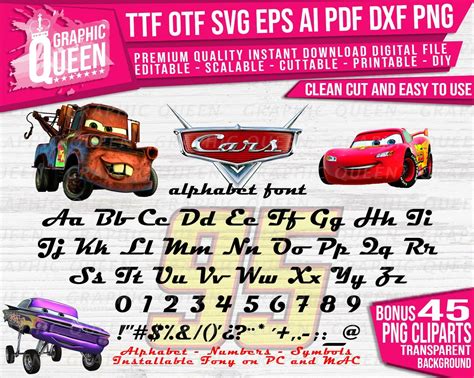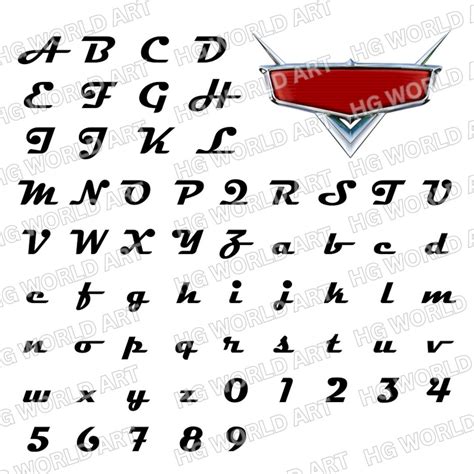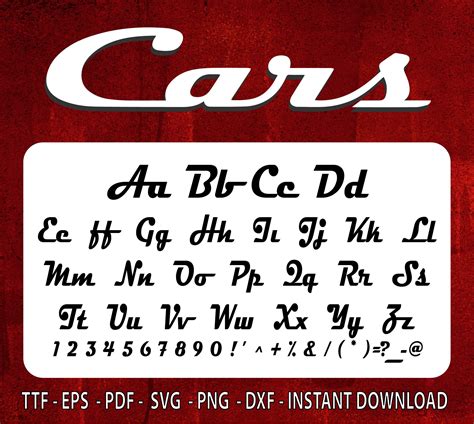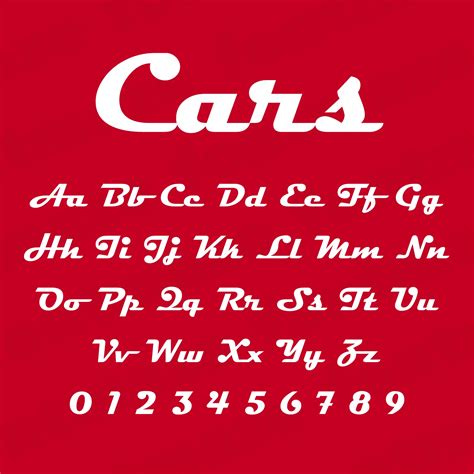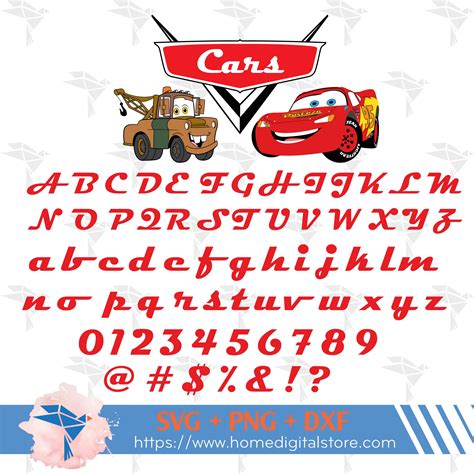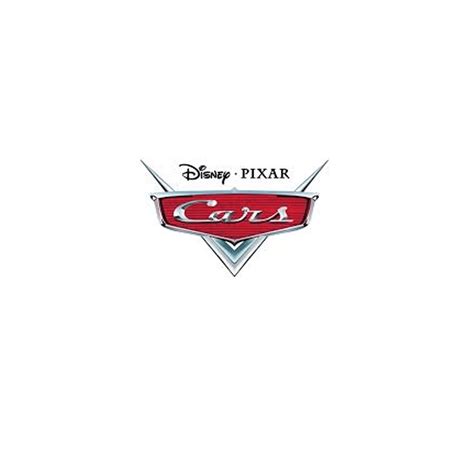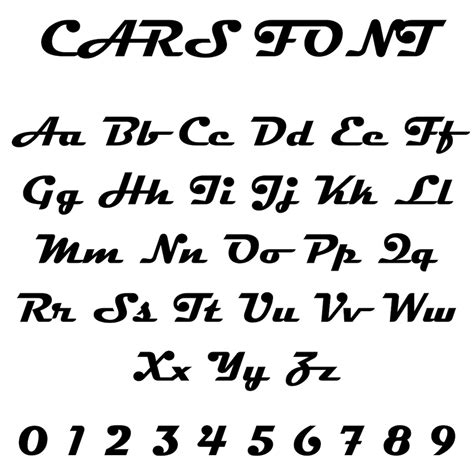
When it comes to graphic design, movie-inspired typography often carries a nostalgic weight that few other aesthetics can match. Perhaps no other film franchise has captured the hearts of families and racing enthusiasts quite like Disney-Pixar’s Cars. The iconic logo, with its tilted, high-octane lettering, has become synonymous with speed, adventure, and the golden age of automotive travel. Whether you are creating a themed birthday party invitation, a fan-made poster, or custom merchandise, finding the perfect Cars font is essential to replicating that high-energy, cinematic feel that fans instantly recognize.
Understanding the Aesthetic of the Cars Font
The original logo for the film is a custom-designed piece of lettering, meaning there isn't one single "official" file that the studio released for public use. However, the design community has spent years crafting near-perfect replicas that capture the spirit of the original. The Cars font style is defined by several distinct characteristics:
- Bold, Italicized Sans-Serif: The letters are thick and slanted forward, creating an immediate sense of forward motion.
- Distressed or Grunge Texture: Many variations include a weathered look, reminiscent of old Route 66 signage.
- Horizontal Bar Highlights: The design often incorporates thin horizontal lines through the center of the letters, mimicking the aesthetic of vintage chrome badges on classic automobiles.
- High Legibility: Despite the stylized approach, the letters remain clear and impactful, perfect for headings and branding.
By mimicking these features, designers can create a cohesive look that aligns perfectly with the visual language established by the film franchise. If you are aiming for a professional look, focus on using fonts that prioritize that "racing" vibe, even if they aren't exact clones of the movie logo.
Popular Alternatives for a Racing Vibe
Since the original logo is a trademarked design, creators often turn to licensed alternatives that capture the same energy. Several typefaces on the market today offer that aggressive, automotive-inspired personality. When selecting a font, consider the specific mood you are trying to evoke—is it a sleek, modern sports car or a dusty, vintage hot rod?
| Font Category | Best Used For | Visual Style |
|---|---|---|
| Action/Racing Fonts | Logos and Banners | Aggressive, slanted, bold |
| Vintage Display | Signage/Route 66 themes | Weathered, slab-serif, classic |
| Chrome-Inspired | Product Labels | Metallic, high-contrast, sharp |
Tips for Designing with Racing Typography
Using a Cars font correctly involves more than just selecting the right letters. To really sell the automotive aesthetic, you need to pay attention to spacing, color palettes, and secondary graphical elements. A flat, boring layout can ruin even the most dynamic typeface.
Here are a few professional tips to keep your designs moving in the right direction:
- Pair with a Secondary Font: If your main header uses a high-impact racing font, keep your body text simple. A clean, neutral sans-serif (like Montserrat or Helvetica) will prevent the design from becoming too cluttered.
- Use Racing Colors: Think beyond just black and white. Incorporate a palette of "racing red," vibrant yellow, and asphalt gray to ground your typography in the automotive theme.
- Experiment with Shadows: Adding a deep drop shadow or a perspective tilt can help the text "pop" off the page, making it look like it is physically moving toward the viewer.
- Add Subtle Distressing: If the font you chose is too "clean," use a grunge brush in your design software to lightly texture the edges, giving it that classic, weathered look found on the roadside signs in the film.
Creating Consistency in Your Themed Projects
The secret to great design is consistency. If you are building an entire branding package around a racing theme, stick to a maximum of two or three fonts. Using a Cars font as your primary headline style works best when it is supported by a consistent grid system. By aligning your text with other design elements like stripes, motion lines, or circular badges, you create a professional finish that looks like it came straight out of a studio workshop.
Remember that the typography should feel like part of the environment. If your background is a race track, the tilt of your text should follow the curve of the track. If your background is a vintage garage, the letters should feel grounded and perhaps even slightly faded. These small adjustments transform a simple line of text into a narrative element that tells a story, much like the film itself.
Final Thoughts on Automotive Branding